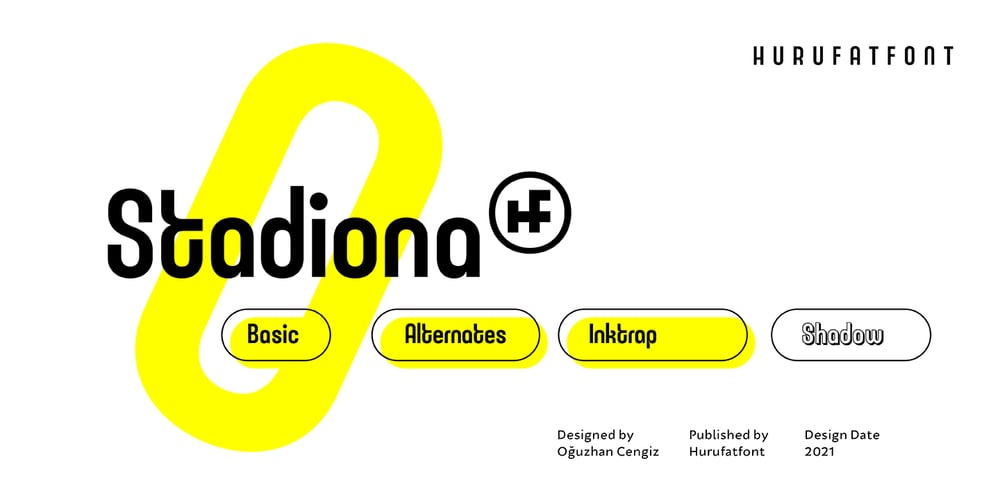
Stadiona Font Family was designed by Oğuzhan Cengiz and published by Hurufatfont. Stadiona contains 4 styles and family package options. Stadiona; it is a modern display font inspired by the functional and simple solutions of the 1920s design collective Bauhaus and blended with contemporary sans serif fonts. All letters are based on the stylized stadium of geometric form. To respond different and creative usage needs; it is presented in four different versions as Basic, Alternates, Inktrap and Shadow.